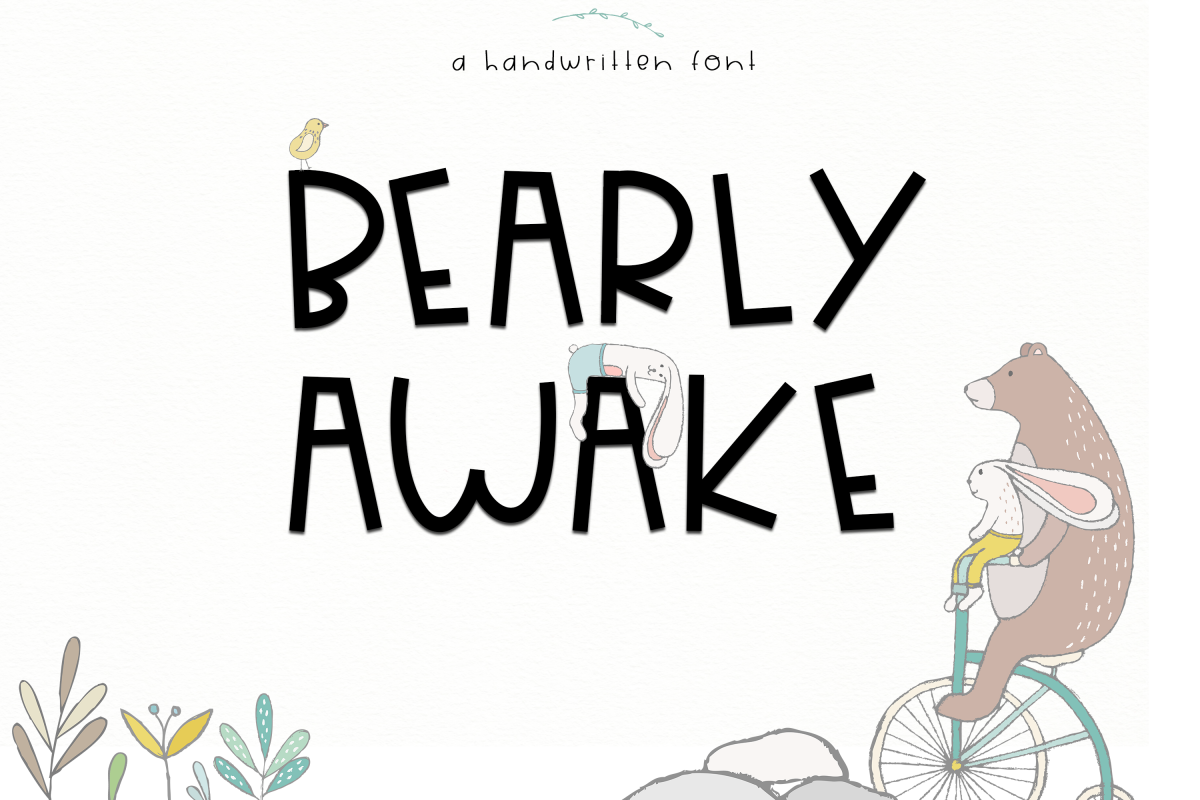
Bearly Awake - Handwritten Font
BearlyAwake
Bearly Awake is an all caps handwritten font.
The letters are big, bold and unique!
This font is perfect for quotes, headings, blogs, logos, invitations and more!
This font *does not* include accent characters.